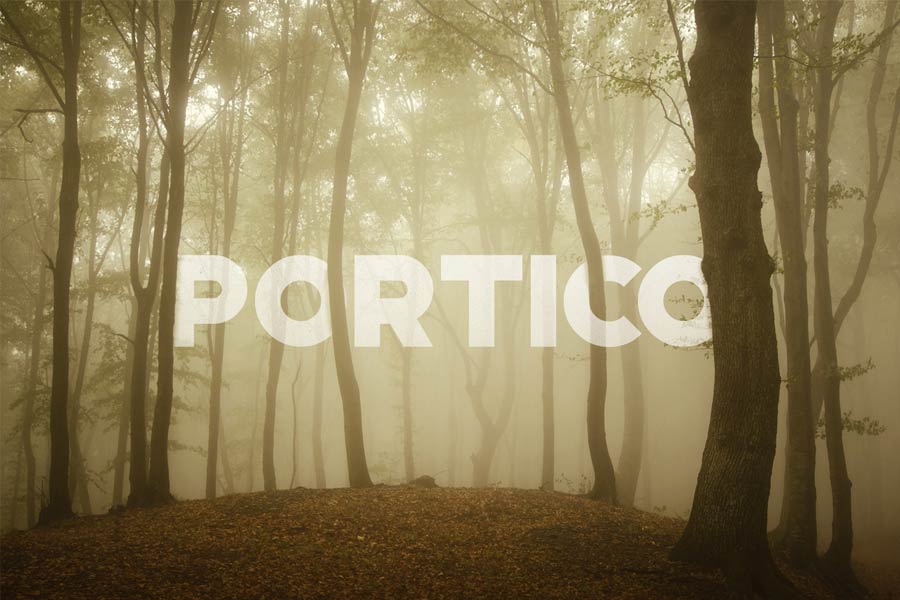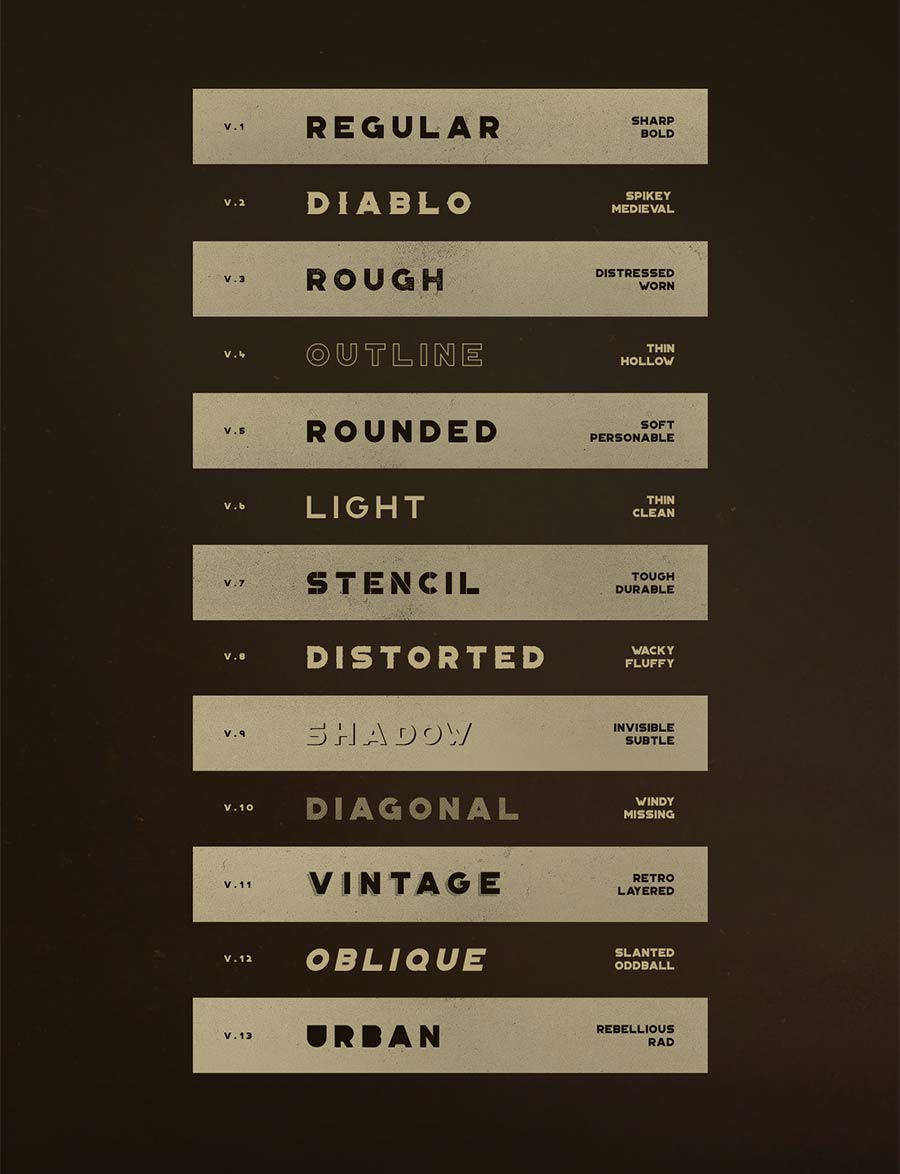
Portico is a uppercase-only free fonts that comes with huge variations of styles, front thin to thick and clean to grungy, a total of whopping 27 styles. With this family, you will be definitely able to find your suitable font for your next expressive designs. You can download for free but is only for personal use only. Please buy for commercial usage.
- Designer: Mehmet Reha Tugcu
- Styles: 27